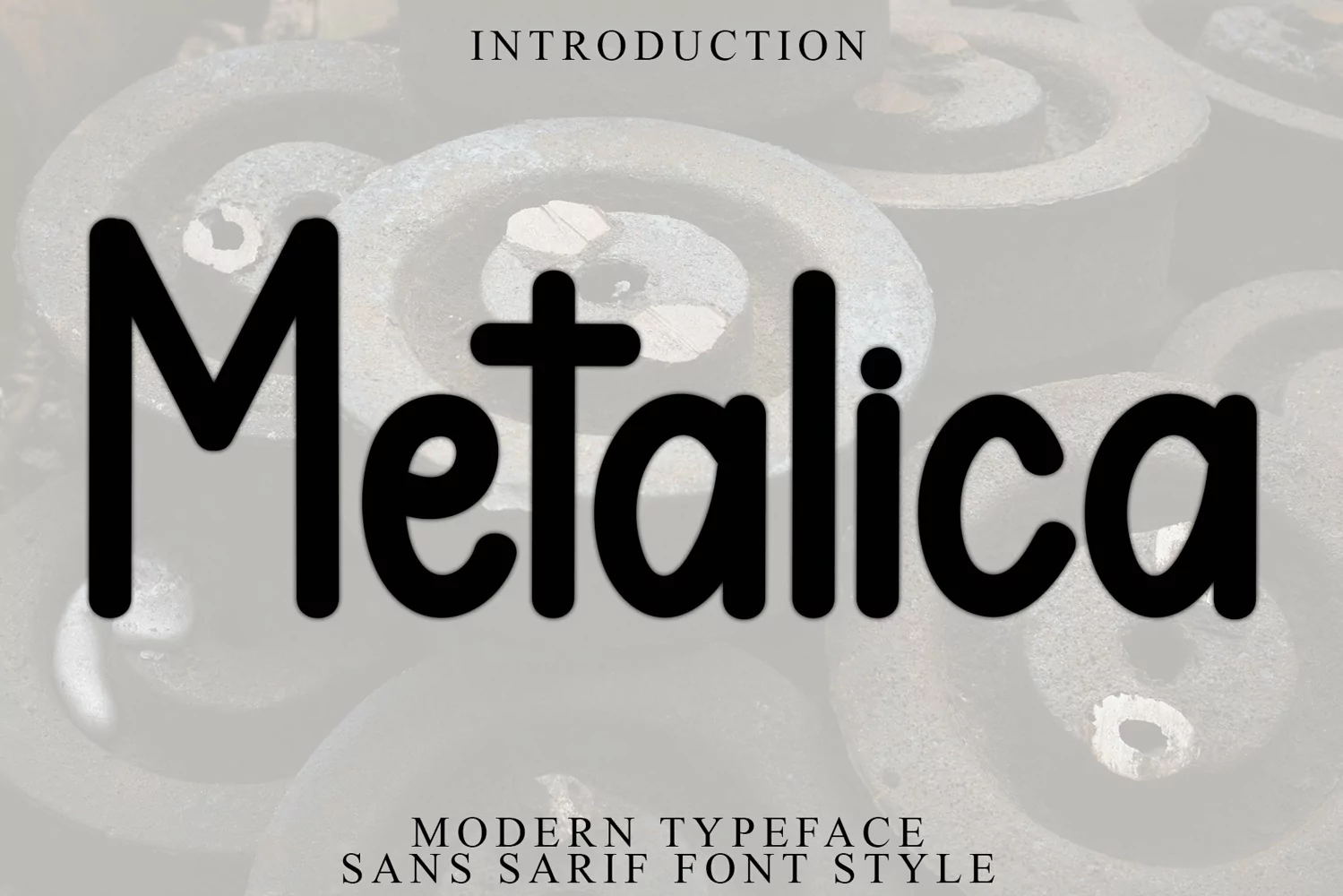
Metalica
Metalica is a beautiful and eye-catching font designed with a soft, unique touch. Its distinctive strokes give it a special character, making it meaningful and versatile for future use. With various characters, it’s perfect for design projects, crafts, and other creative works.